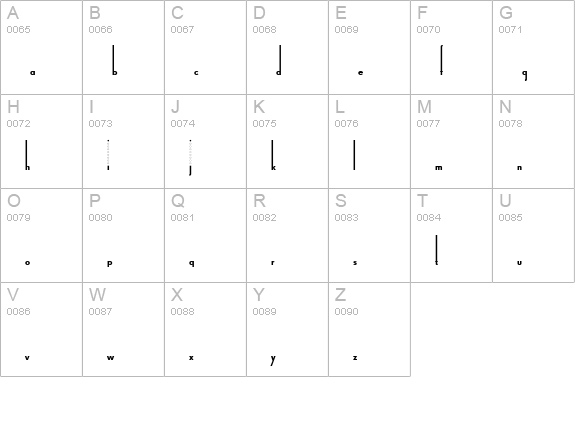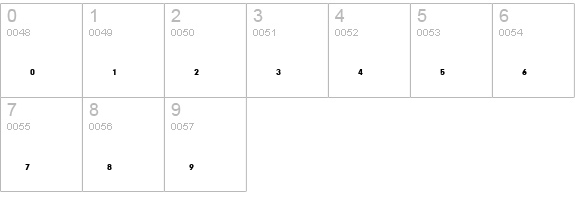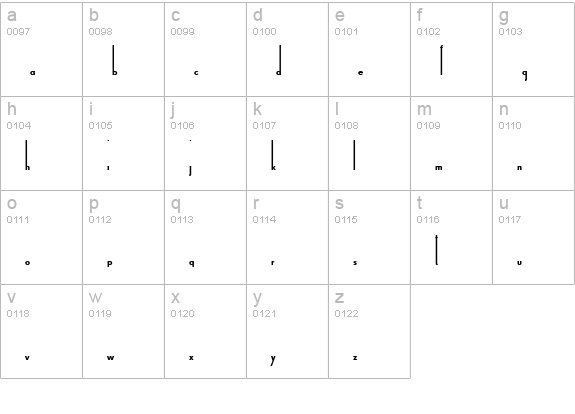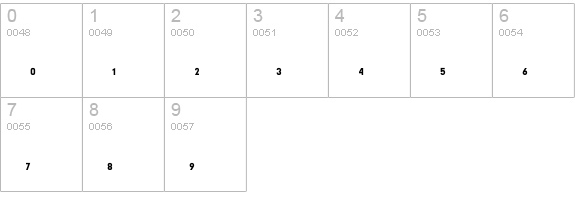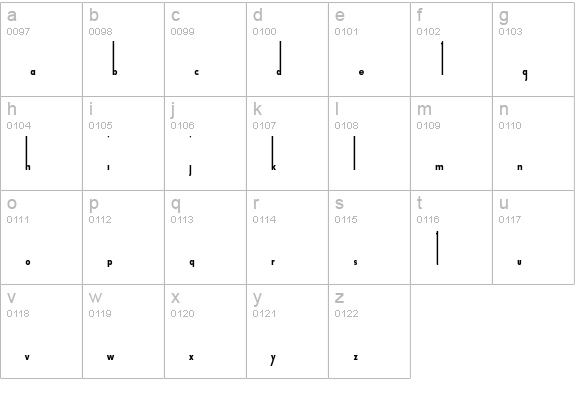
Thiamine Font Details
Introducing Thiamine, a stunningly elegant font that exudes sophistication and charm. With its graceful curves and delicate strokes, Thiamine is the perfect choice for those seeking a font that effortlessly combines modernity with timeless appeal. Thiamine's versatility is truly remarkable, making it suitable for a wide range of design projects. Whether it's creating eye-catching logos, designing captivating packaging, or crafting beautiful wedding invitations, Thiamine effortlessly elevates any design to new heights. What sets Thiamine apart from other fonts is not just its exceptional aesthetics, but also its accessibility. We are thrilled to share that Thiamine is available for free download exclusively at FontsMarket.com. That's right, you can now enhance your creative endeavors with this exquisite font without any cost. This font is not only visually captivating, but it also offers unmatched legibility, ensuring that your message is conveyed with clarity and impact. Thiamine's clean and clear letterforms make it a joy to read, whether it's on a digital screen or in print. Thiamine's wide range of characters and glyphs further enhances its versatility, allowing you to add a personal touch to your designs. From elegant swashes to unique ligatures, Thiamine offers endless possibilities for creative expression. Don't miss out on this incredible opportunity to elevate your designs with Thiamine. Download this remarkable font for free at FontsMarket.com and unleash your creativity today. With Thiamine, you are guaranteed to captivate your audience and leave a lasting impression.